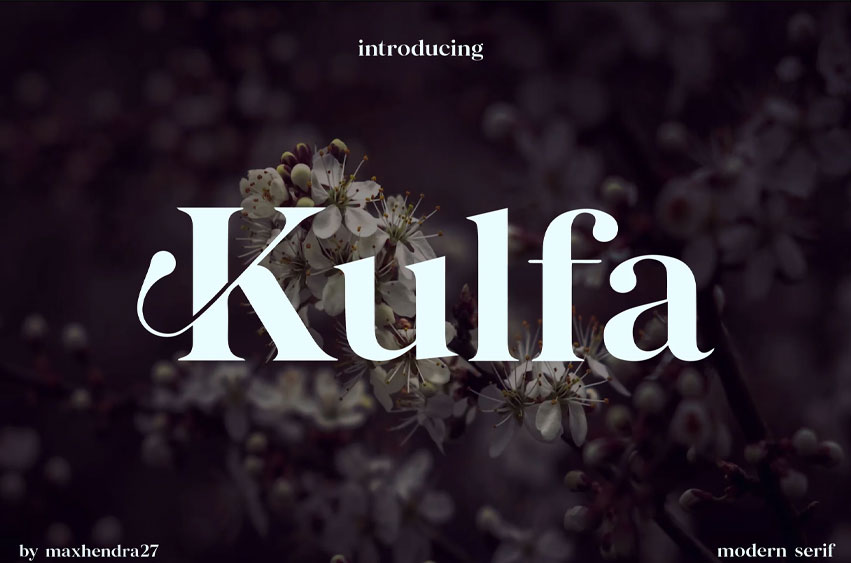
Kulfa Font
Kulfa Font is a super thick typeface with more traditional letter shapes, making it perfect for creating (or recreating) the concise look of film poster production credits.